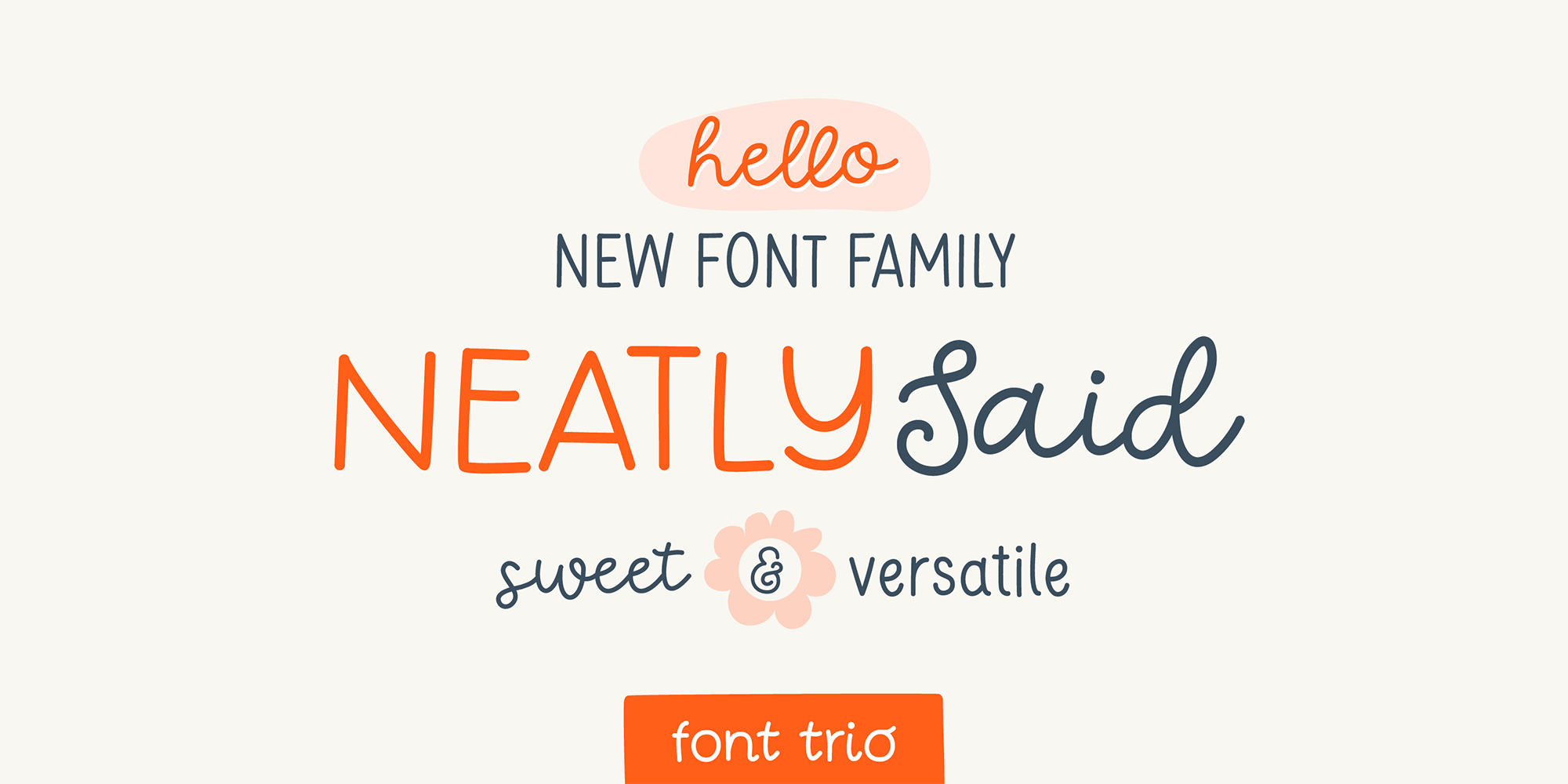
Neatly Said Font is ideal for professional writing services, elegant stationery brands, sophisticated greeting card companies, refined personal coaching platforms, organized lifestyle blogs, clear communication consultants, and polished editorial publications. This articulate typeface embodies clarity and refined expression, bringing precise communication and elegant simplicity to any design project celebrating clear thinking and well-organized presentation.
What makes Neatly Said Font exciting is its perfect balance of clarity and sophistication that captures the essence of well-articulated thoughts and organized communication excellence. The font features clean letterforms with precise proportions and thoughtful character spacing that evoke both the clarity of well-written prose and the elegance of professional presentation. Its articulate character appeals to communication professionals while maintaining exceptional readability for both written materials and editorial applications.
The Neatly Said Font family includes multiple weights from light to bold, complete with elegant italic variations and communication ornamental elements. The character set features articulate ligatures, editorial symbols, professional alternates, and refined decorative accents that enhance the font's sophisticated appeal. Advanced OpenType features provide creative flexibility for international communication brands and multilingual editorial applications.
Whether you're designing professional communication brands, creating editorial materials, or developing refined lifestyle content, Neatly Said Font Free Download provides exceptional clarity and versatility. This articulate typeface transforms ordinary text into polished communication experiences that celebrate clear expression while establishing respected brand recognition in competitive professional writing and editorial publishing marketplaces.